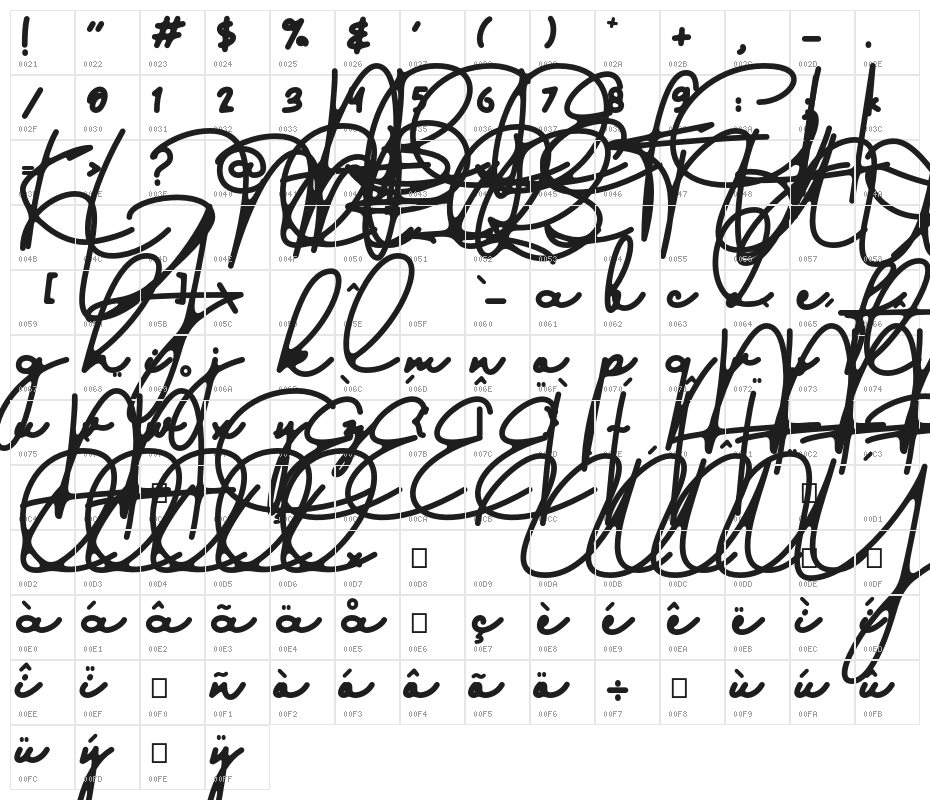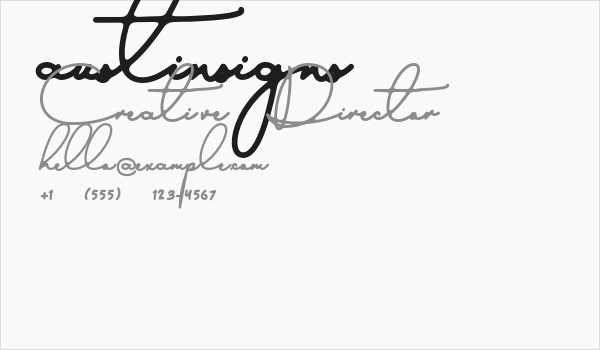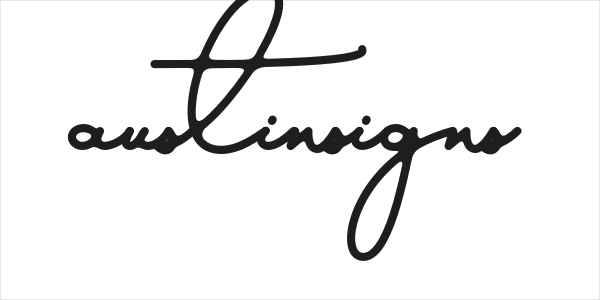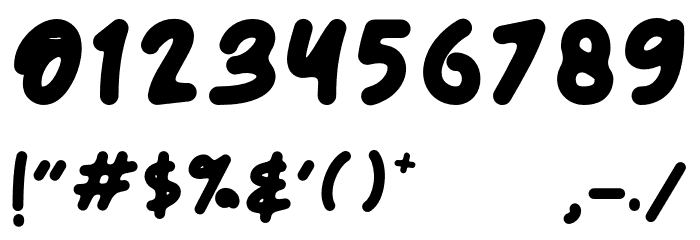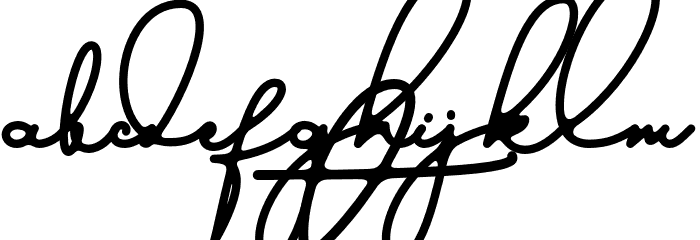
austinsigns Font
austinsigns Description
This font features a dynamic and expressive handwritten style, characterized by its fluid and continuous strokes. The uppercase letters exhibit a graceful, cursive form with elegant loops and swirls, while the lowercase letters maintain a consistent flow, enhancing the overall script-like appearance. The numerals are bold and rounded, providing a strong contrast to the delicate letterforms. Special characters are creatively integrated, maintaining the font's artistic flair. This font's unique style makes it ideal for projects that require a personal touch or a sense of elegance and sophistication.